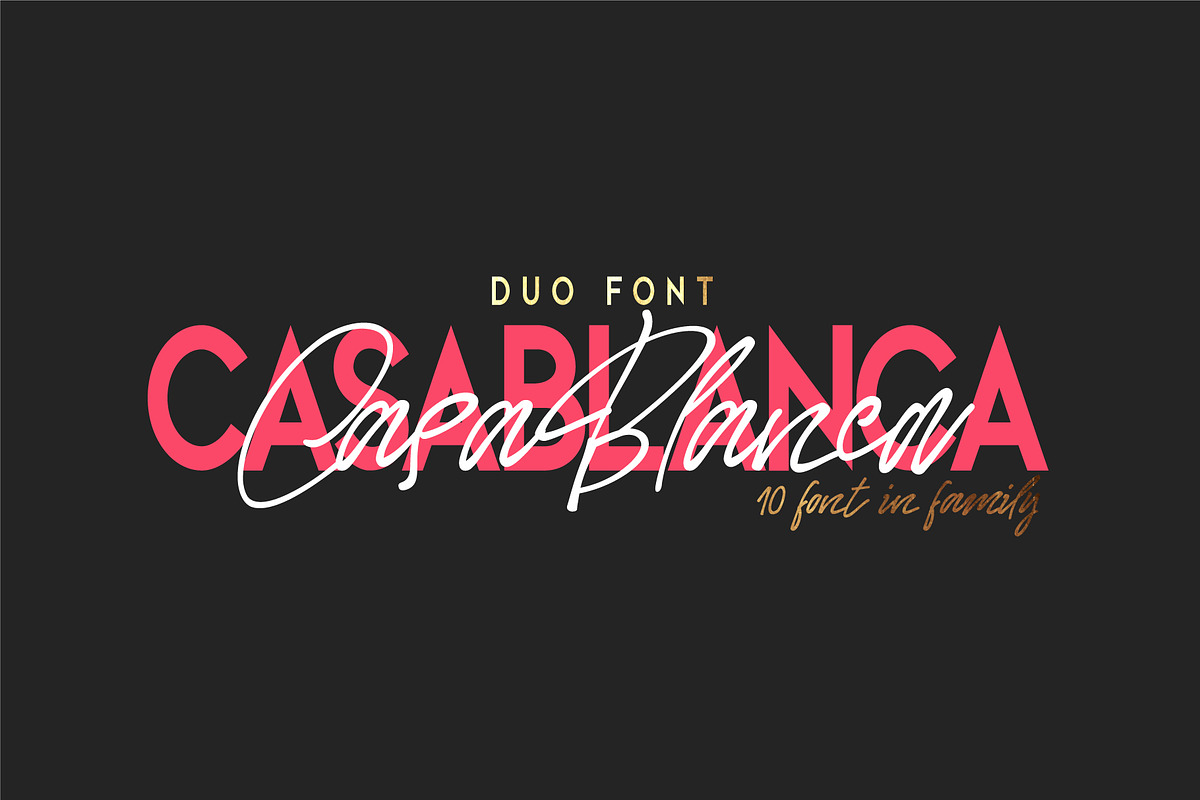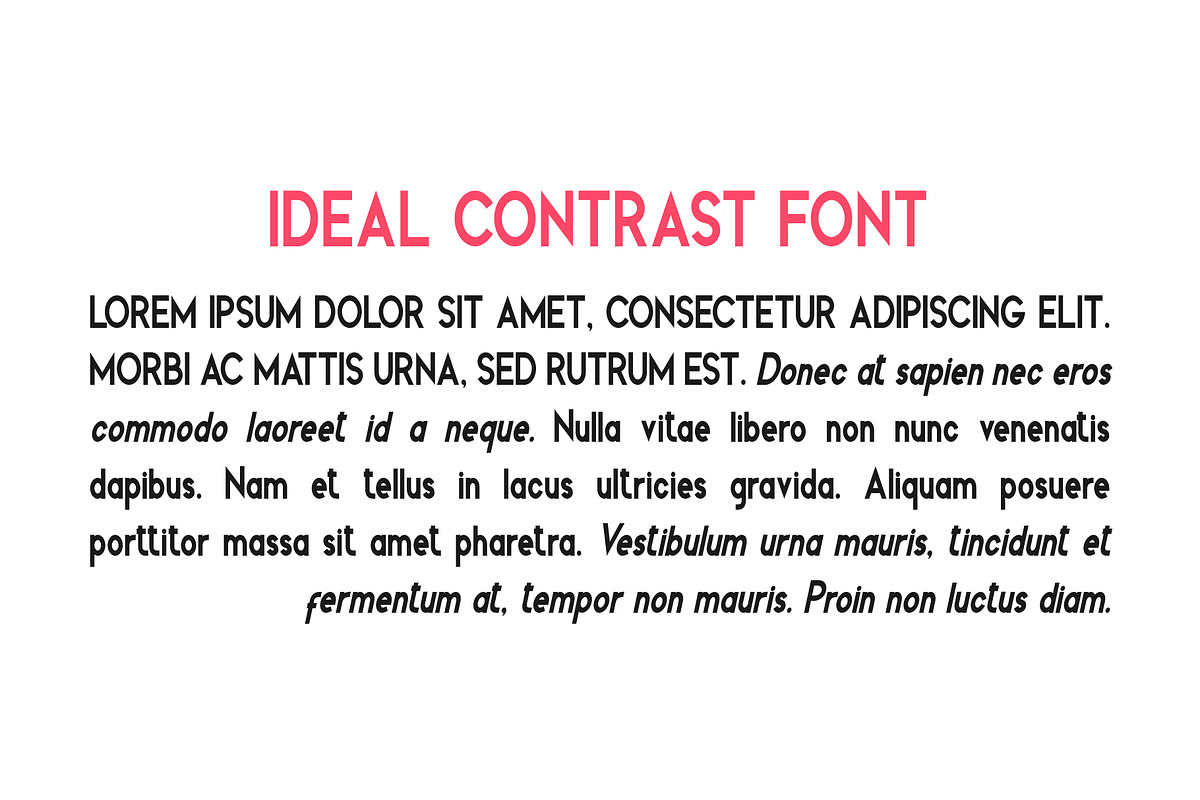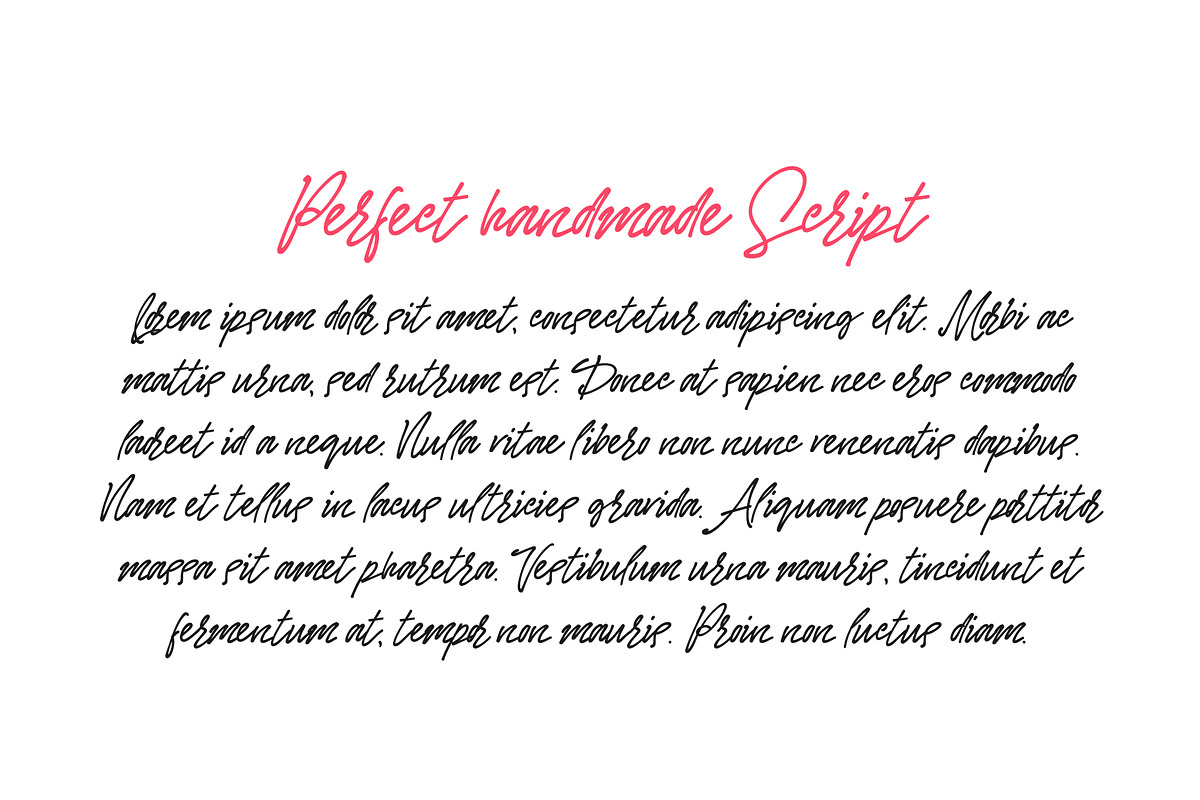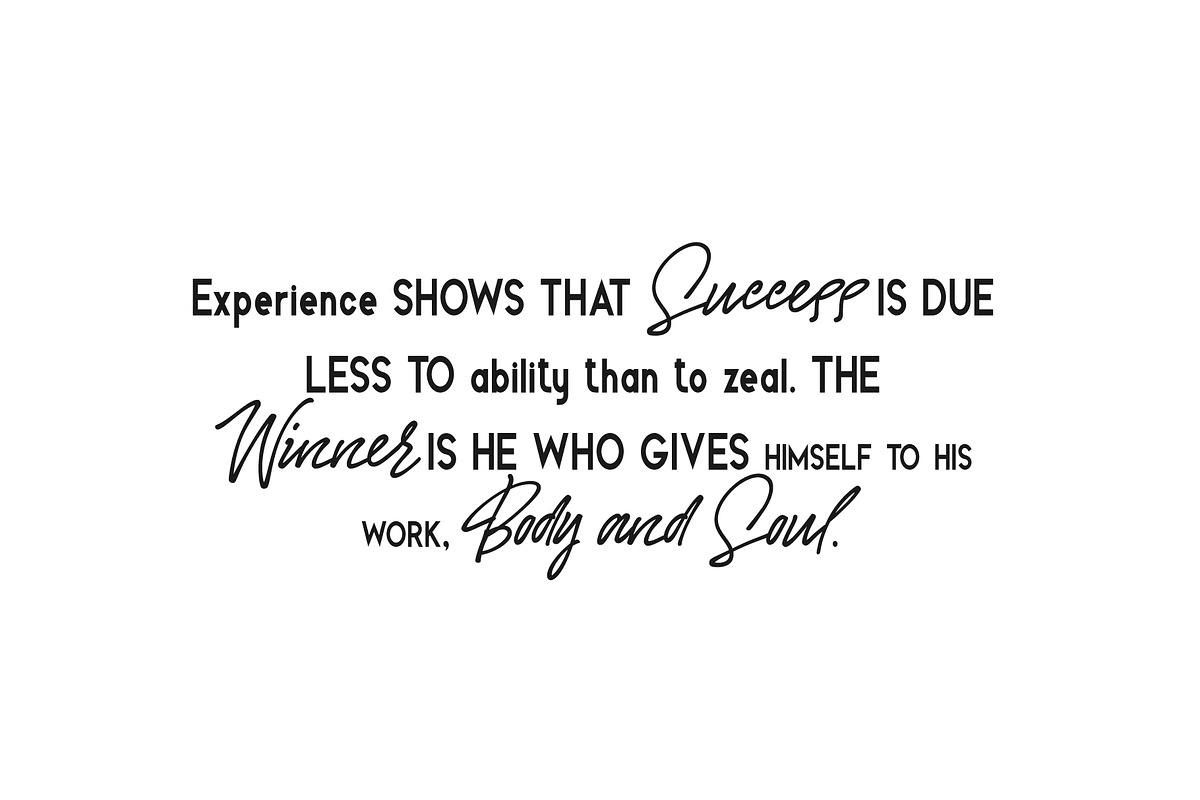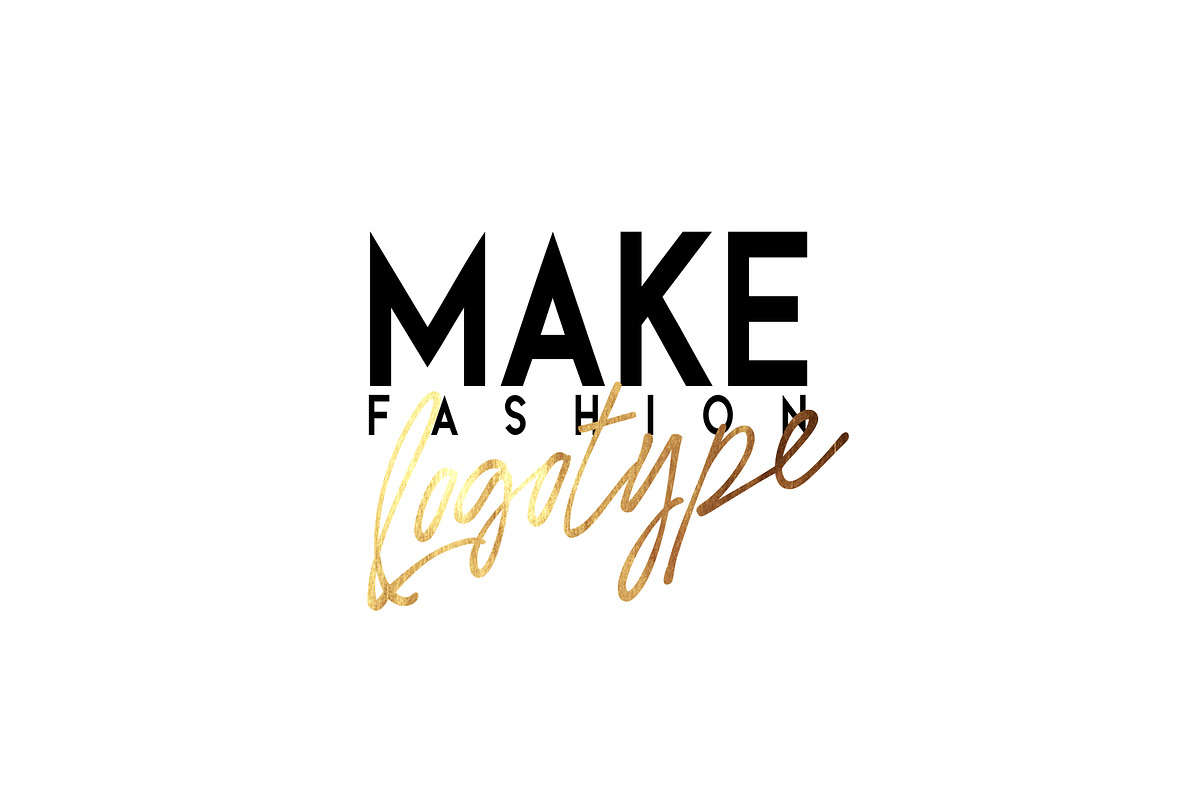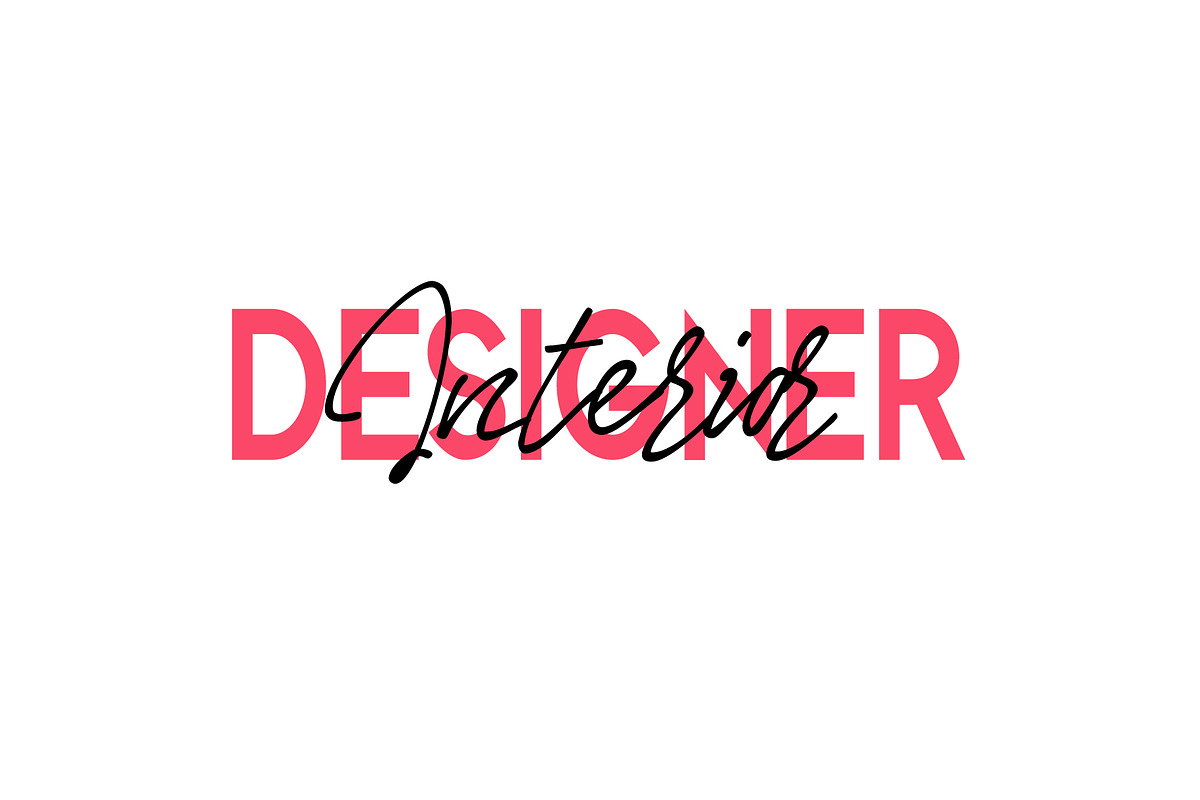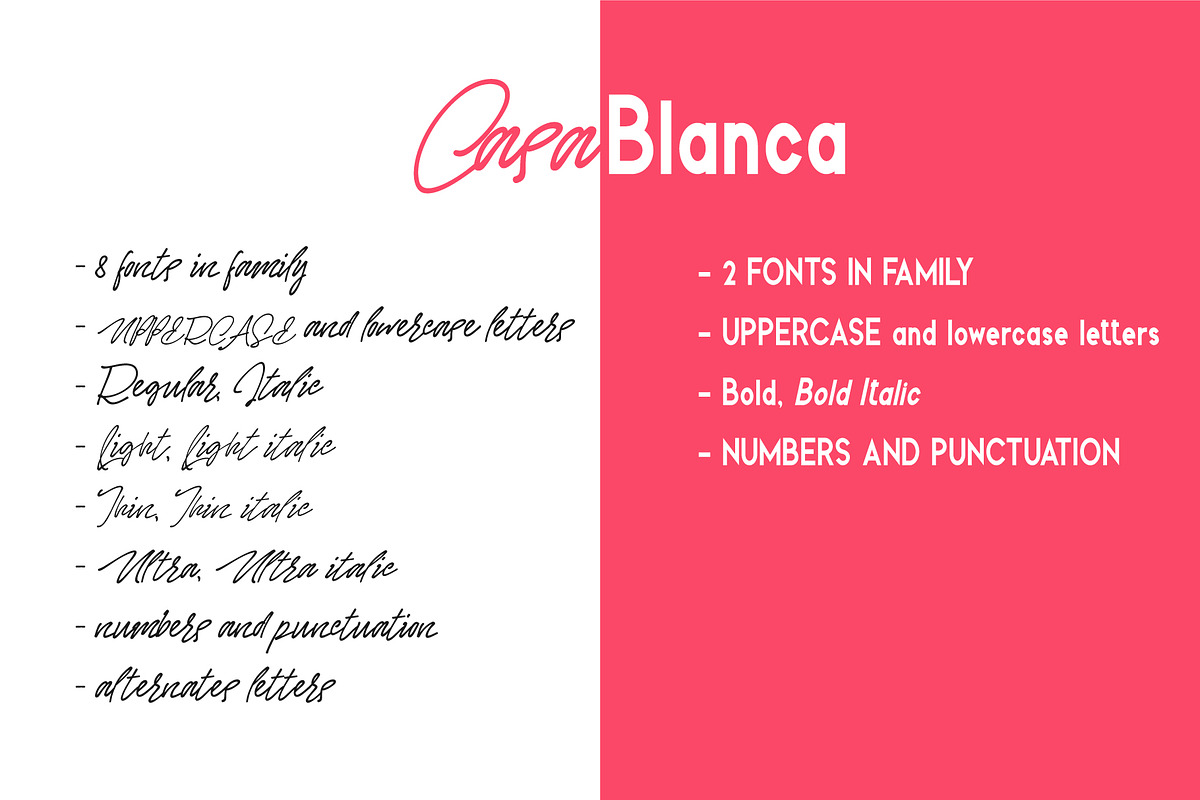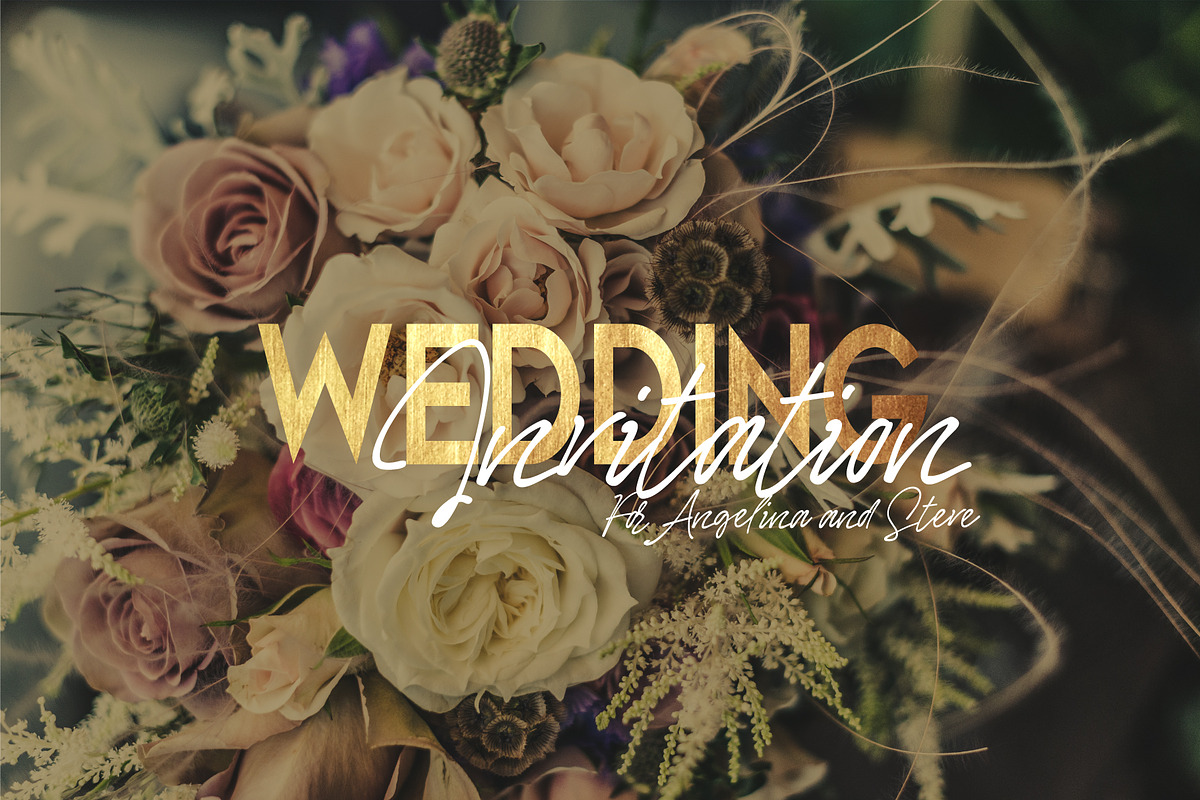
Casablanca. Font Duo
Gentle handwritten font in the company with a strict and confident sans serif font - together create a confident duo. Fonts complement each other as yin and yang. Use them together or separately. Double font is ideal for wedding invitations, logos for the beauty industry, signatures of postcards or printing on T-shirts and other gift items.
Casblanca sans serif:
UPPERCASE and lowercase letters
Numbers & basic Punctuation
Bold and Bold italic font style
Vertically extended contrast font
Casblanca calligraphy:
UPPERCASE and lowercase letters
Numbers & basic Punctuation
Regular and Italic font style
Light and Light italic font style
Thin and Thin italic font style
Ultra and Ultra italic font style
Calligraphy sans serif typeface
Hand-written calligraphy in the pen style with alternates letters